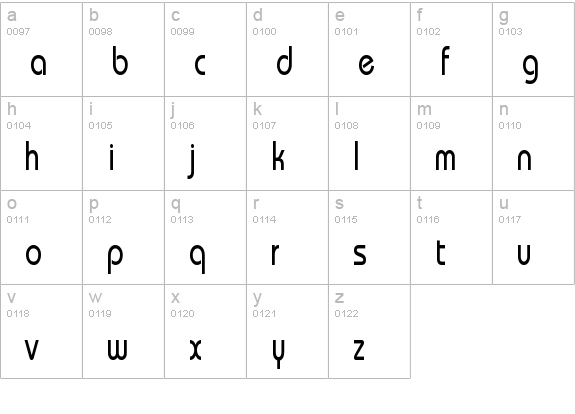
Bimini-Condensed Normal is the standard, neutral, condensed-width variant in the Bimini typeface family \xE2\x80\x94 well suited to general body text, paragraphs, and standard typographic work.
Bimini-Condensed Normal font is a sleek and modern typeface that exudes sophistication and elegance. Its condensed design allows for efficient use of space while maintaining readability and impact. Perfect for a wide range of design projects, from branding to editorial layouts, this versatile font is sure to make a statement. What makes Bimini-Condensed Normal font even more appealing is that it is available for free download at FontsMarket.com. Now, you can elevate your designs without having to worry about breaking the bank. Don't miss out on this opportunity to add a touch of class to your projects with this stylish and contemporary font.